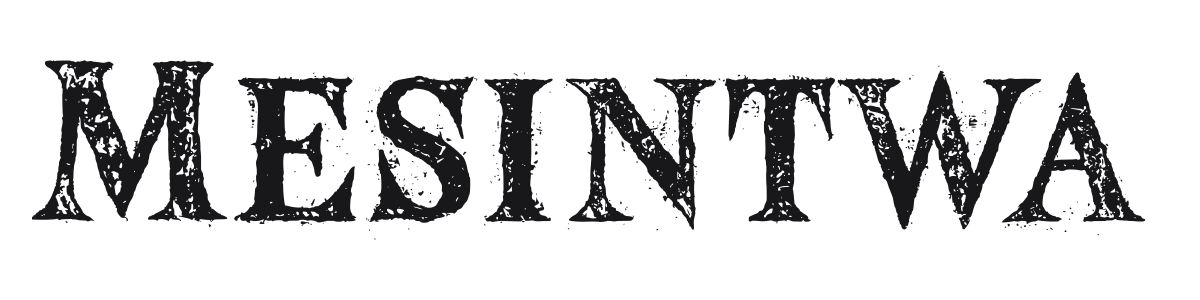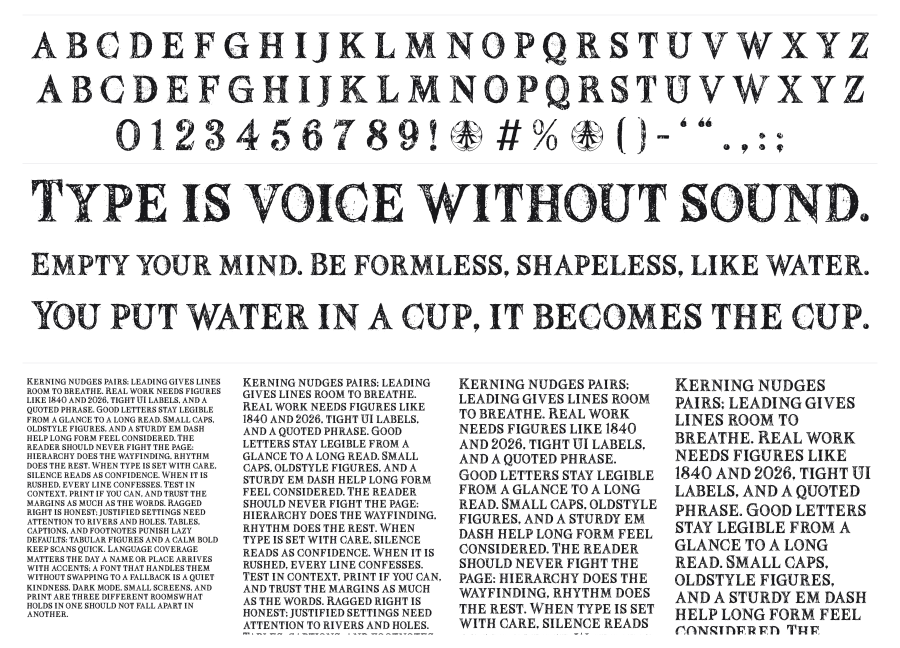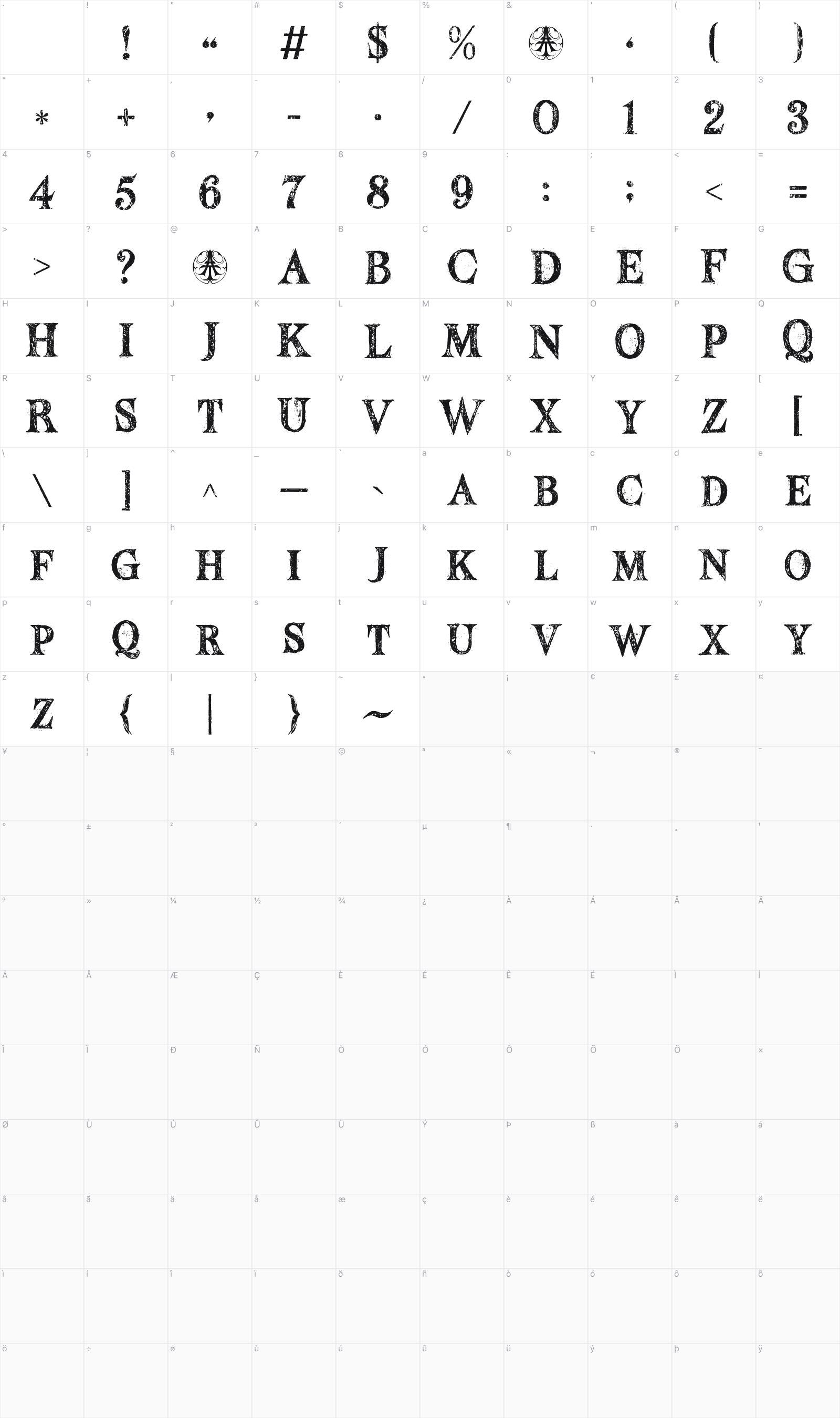
Mesintwa
Mesintwa is a bold distressed serif built on a sturdy 19th-century wood-type structure, its surfaces eaten away by a convincing letterpress erosion effect. The heavy strokes and worn texture give it a raw, frontier-poster energy that works best large. Think craft brewery labels, band posters, or anything that needs to look like it survived a century in a saloon.